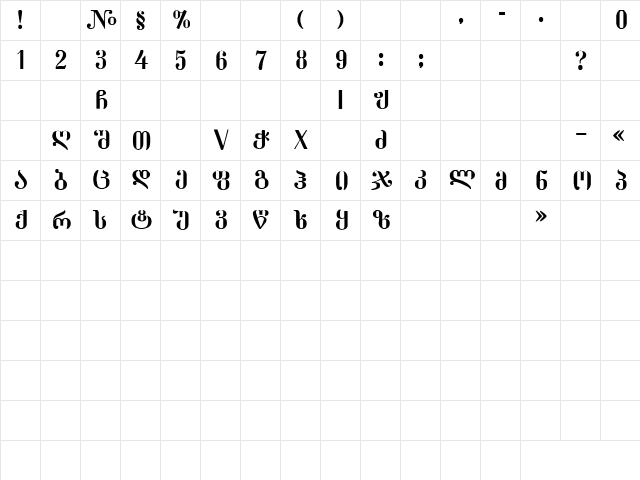
GEO-DumbaMtavr Regular
Design Context for GEO-DumbaMtavr Typeface
GEO-DumbaMtavr offers clean, dependable letterforms without strong stylistic allegiance, making it a practical choice for designers who need flexibility.